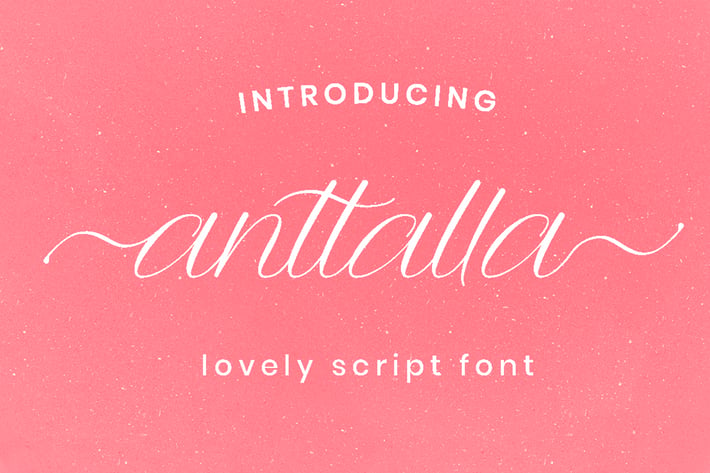
Anttalla - Script Font
Anttalla is modern script calligraphy font, include front swash and ending swash for lowercase glyph, combine it to make the best word for your design.